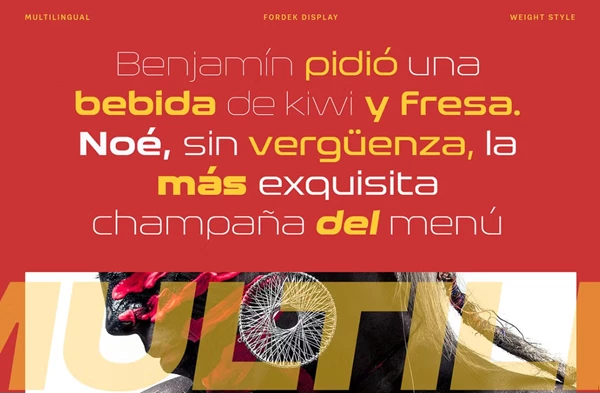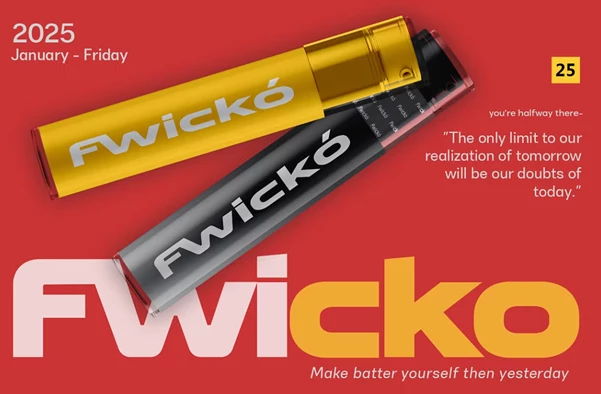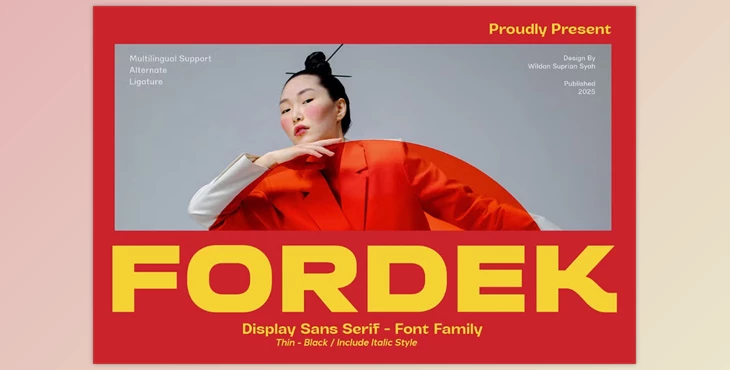
Fordek Font:
Fordek font serves as a modern display typeface specifically designed for short phrases, captions, and typography that seeks emphasis. It is partly inspired by the construction of geometric squares, which imbues it with classic yet modern appeal. Though contemporary, Fordek has an element of grace, which gives it timeless appeal. This makes it suitable for modern projects. Its adaptability to suit various design styles is further complemented by nine different weights of the font, alternate, and ligature options, adding dimension and personality to the designer’s works.